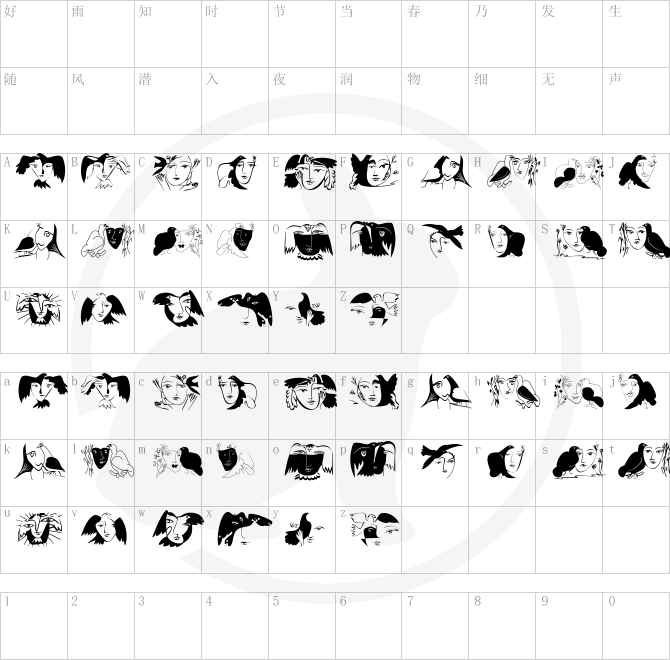
- Font Name:Pabloesque2005
Pabloesque2005.ttf is a very beautiful artistic font, Pabloesque2005.ttf is widely used in the design and printing of various books and pictures,Pabloesque2005.ttf has a strong visual impact,Pabloesque2005.ttf is a commonly used font in newspapers, magazines and books, and is used in posters, e-commerce Poster design, store design, logo design, font design and other fields.Pabloesque2005.